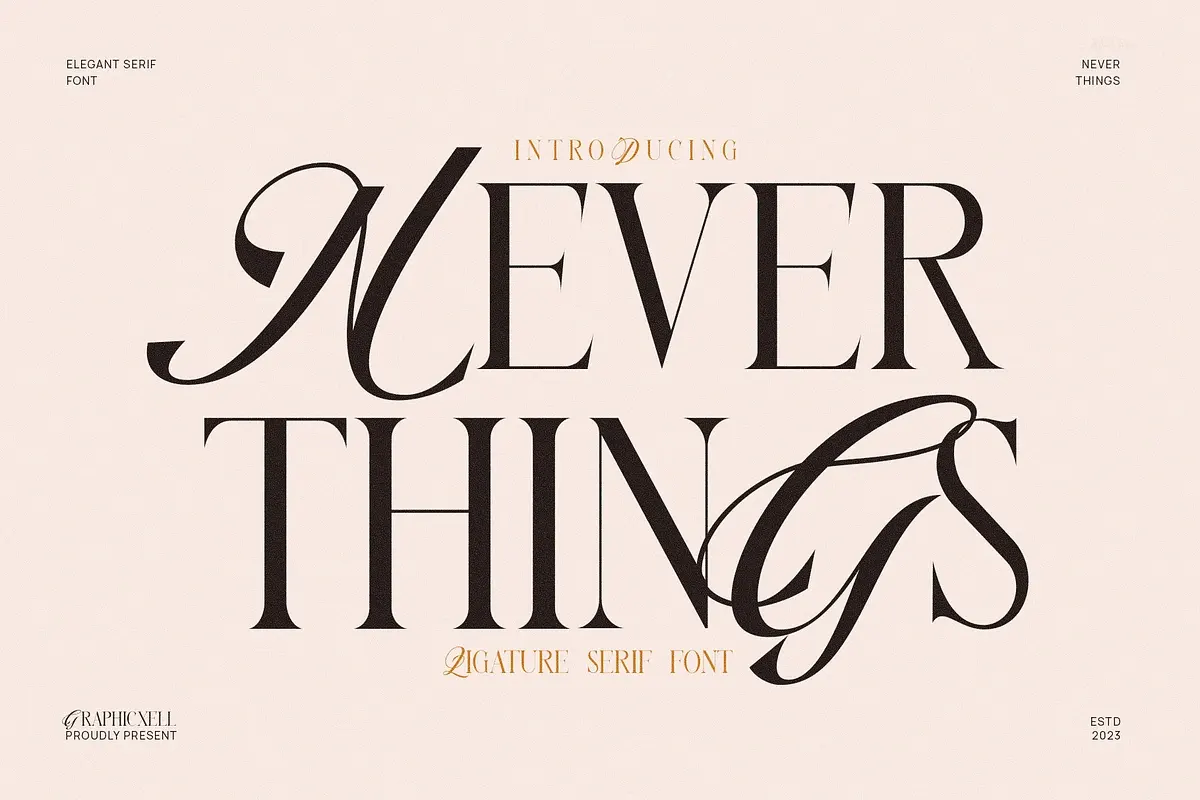
Never Things Font Free Download is an elegant and premium serif typeface designed to make a statement with refined detail and timeless style. With its high contrast strokes, sharp serifs, and graceful curves, this font is ideal for luxury branding, editorial designs, wedding stationery, fashion campaigns, and upscale packaging.
Crafted to balance sophistication and readability, Never Things includes uppercase and lowercase letters, numerals, punctuation, and stylish ligatures—giving you full creative control to elevate any visual project with a classy edge.
Whether you're building a chic logo or a beautifully designed magazine spread, Never Things Font Free Download adds that perfect touch of premium flair. You’re free to test it out in personal or concept work, but be sure to purchase the correct license for any commercial use. Make your typography unforgettable with the timeless beauty of this elegant serif font.